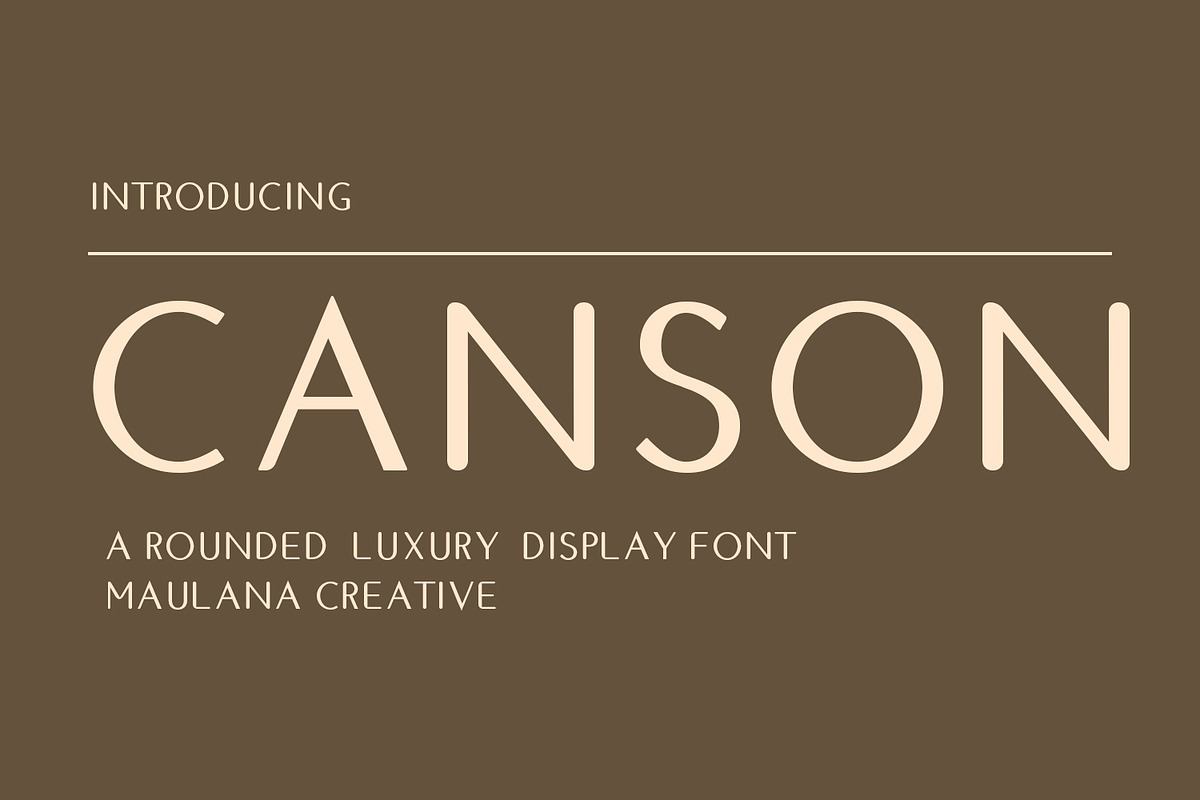
Canson Rounded Luxury Display Font Free Download
Canson Rounded Luxury Display Font Free Download is a refined and elegant typeface that combines modern design with luxury appeal. Its rounded edges and clean, bold strokes make it perfect for high-end branding, fashion labels, product packaging, and luxury event invitations. The font’s graceful yet strong presence allows it to stand out while maintaining sophistication and readability. Whether you're creating upscale logos, premium marketing materials, or stylish advertisements, Canson Rounded Luxury Display Font Free Download gives you the opportunity to test its beauty and versatility in personal projects before purchasing a commercial license. Elevate your design work with a font that embodies both class and contemporary style.